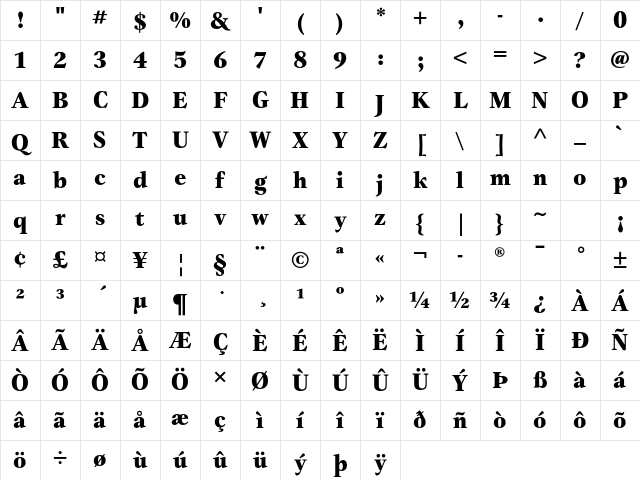
Gamma ITC Std Black
Designer: Jovica Veljovic
Design Context for Gamma ITC Std
Gamma ITC Std is a composed and adaptable typeface that performs quietly and consistently across a wide range of design contexts.